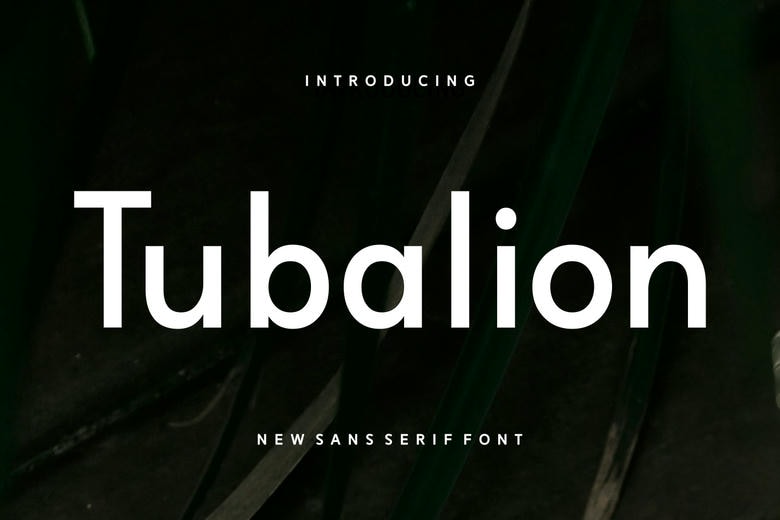
Tubalion Font
Tubalion is a modern-Traditional geometric typeface, using sans serifs and a fluid style. With this simplicity and smooth rhythm, it is a great choice to use in a branding, body text, minimalistic packaging, and classic web design.
Tubalion Sans Serif Font